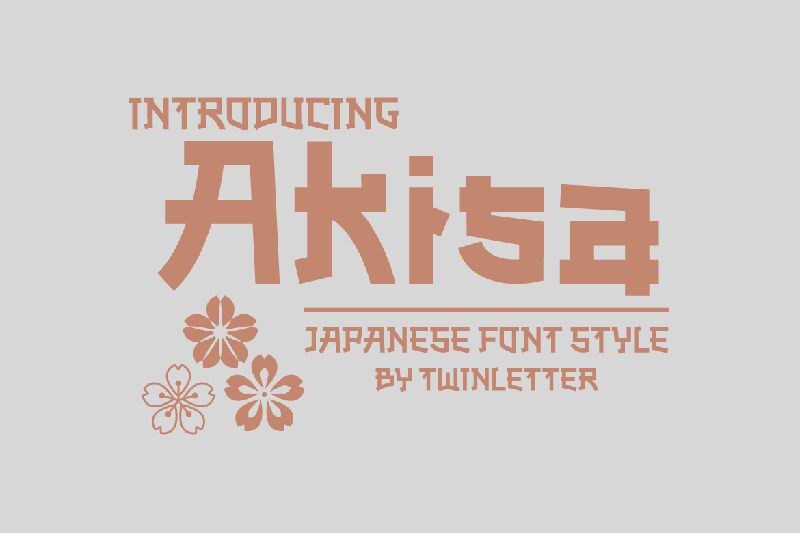
Akisa, the japanese-style font designed by twinletter, is an elegant and distinct typeface perfect for any project that requires a touch of foreign script. With its unique characters and smooth curves, Akisa adds a touch of sophistication to any design. This semi-bold font is ideal for logos, invitations, menus, and branding materials. Its wide range of font widths makes it perfect for both display and body text. Whether you're designing a website or creating promotional materials for your business, the Akisa font will impress your audience with its timeless style and versatility. Let your creativity run wild with this beautiful foreign font!